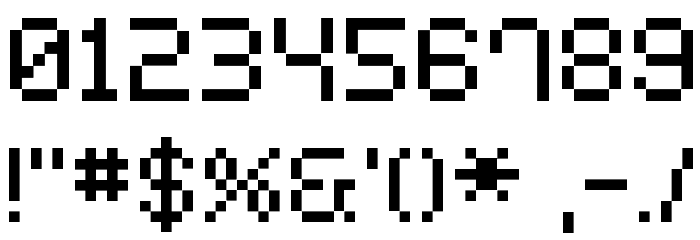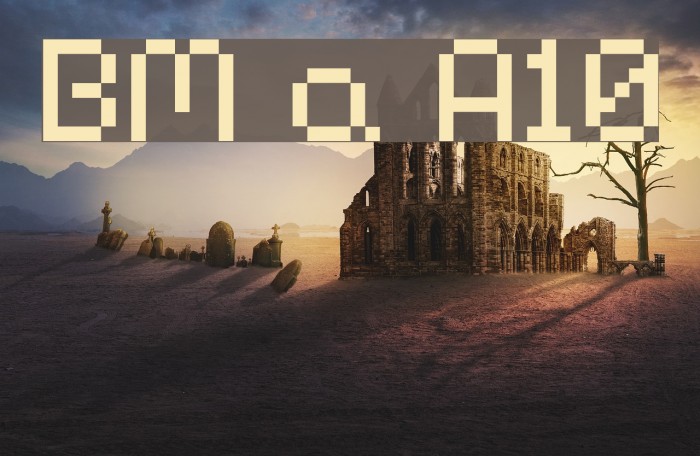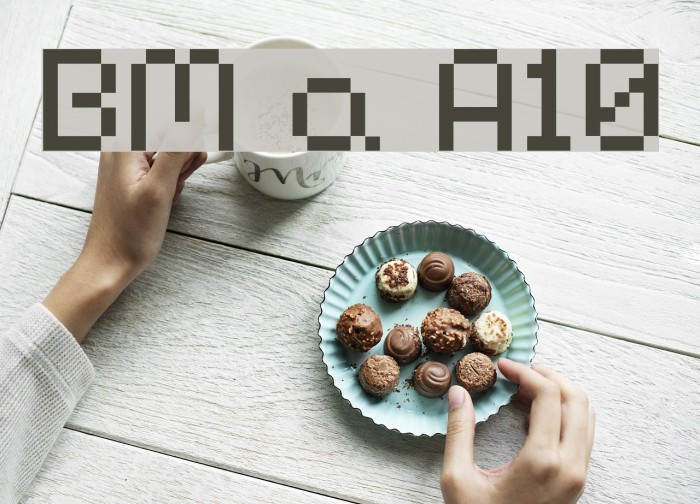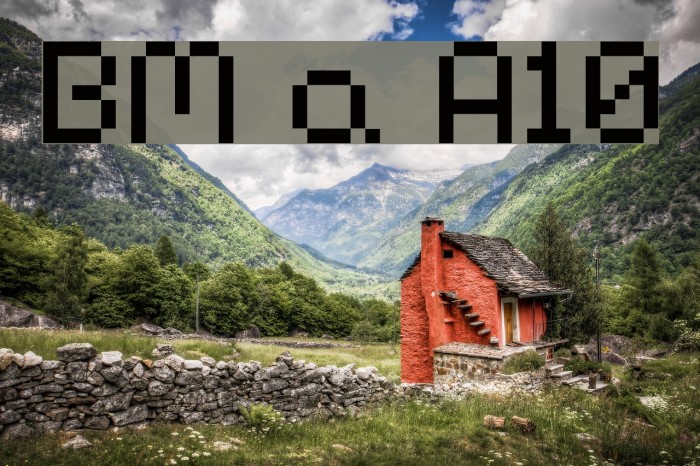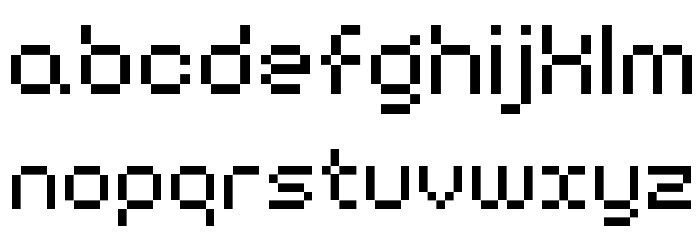
BM harry A10 Font
BM harry A10 Description
This font features a pixelated, blocky design reminiscent of early digital displays and retro video games. Each character is constructed with a grid-like precision, giving it a distinctly geometric and mechanical appearance. The uppercase and lowercase letters maintain a consistent height, contributing to a uniform and cohesive look. The numerals and special characters follow the same pixelated style, ensuring visual harmony across all glyphs. This font's unique aesthetic is ideal for projects that aim to evoke nostalgia or a tech-inspired theme.
A pixelated, blocky font with a retro digital aesthetic from Pixel fonts.
- Proposed Projects: Ideal for retro video game designs, tech-themed posters, digital art projects, and nostalgic branding.
- Overall Style: Retro, Digital
- Use Case: Headlines, Logos, Digital displays